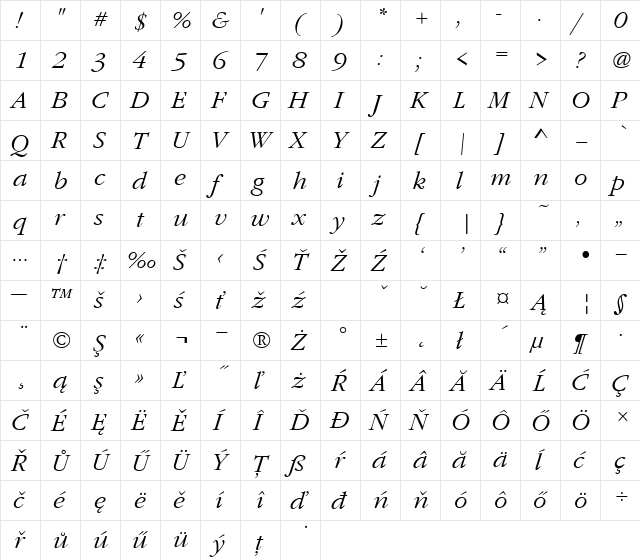
GaramItcTEELig Italic Italic
Design Context for GaramItcTEELig Italic Typeface
GaramItcTEELig Italic is a composed and adaptable typeface that performs quietly and consistently across a wide range of design contexts. The slanted form adds forward momentum and visual energy.
Pro Tip: Try GaramItcTEELig Italic for annotation and caption copy alongside an upright companion — the contrast in angle creates a dynamic but ordered typographic system.